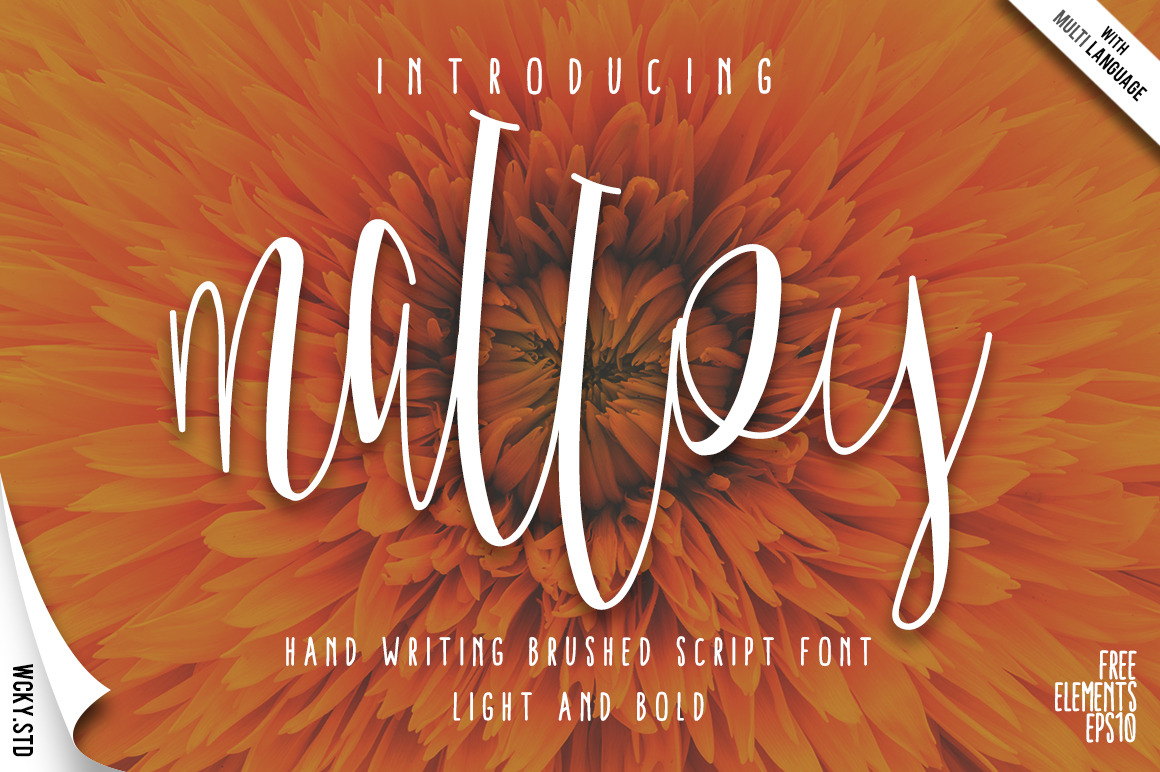
Malloy Font with Elements
MALLOY FONT
New font from us for your design web, invitation card, and graphic. Malloy Font have 2 font style LIGHT & BOLD version, easy to use for user, and can make it easier to convey the message in your design. available for mac or windows.